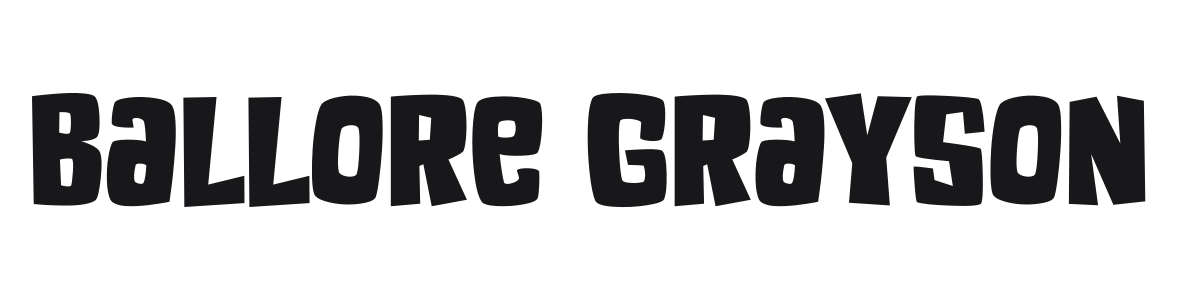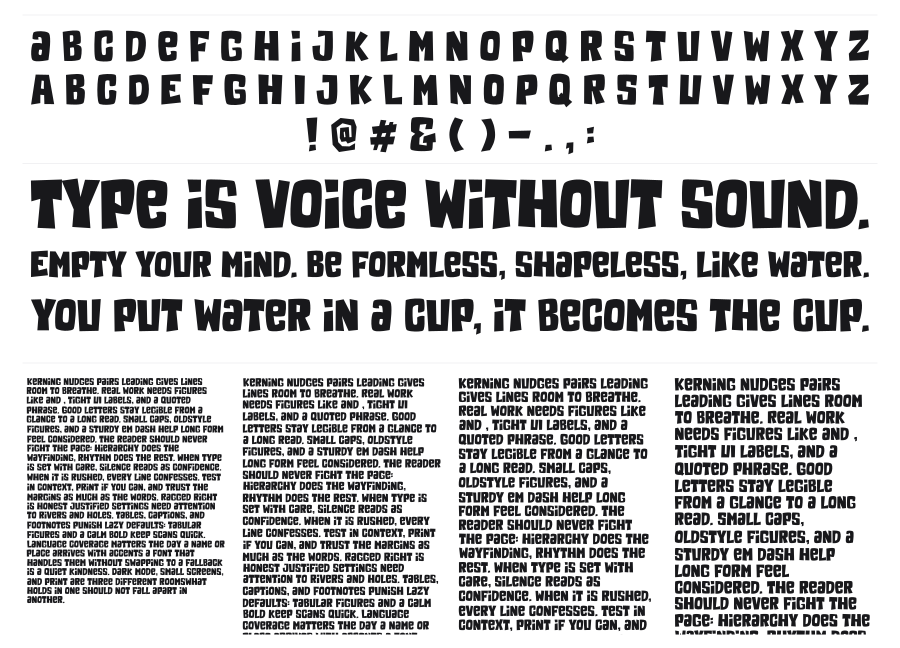
Ballore Grayson
Ballore Grayson is a heavy condensed display font built on deliberately rough, irregular construction. Letters are thick and chunky with warped outlines that suggest something stamped hard or carved by hand. It brings raw energy to posters, band merch, game titles, and street-flavored branding.